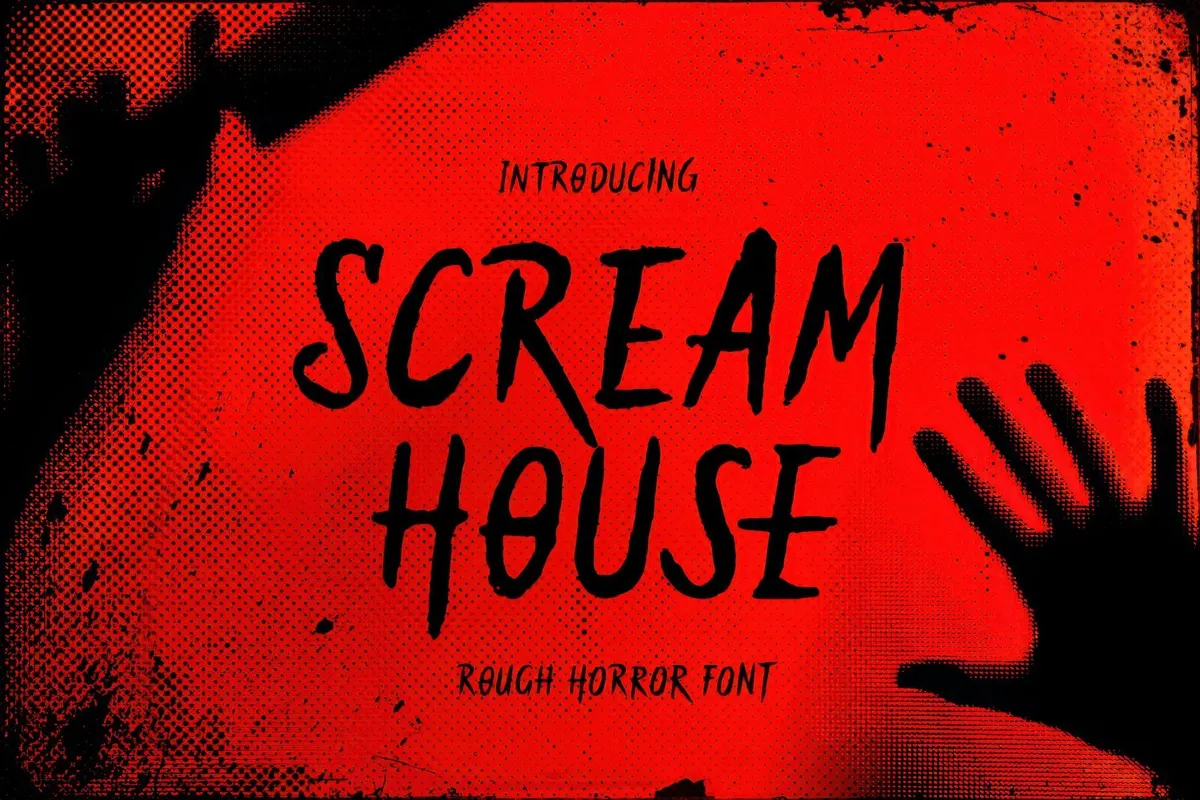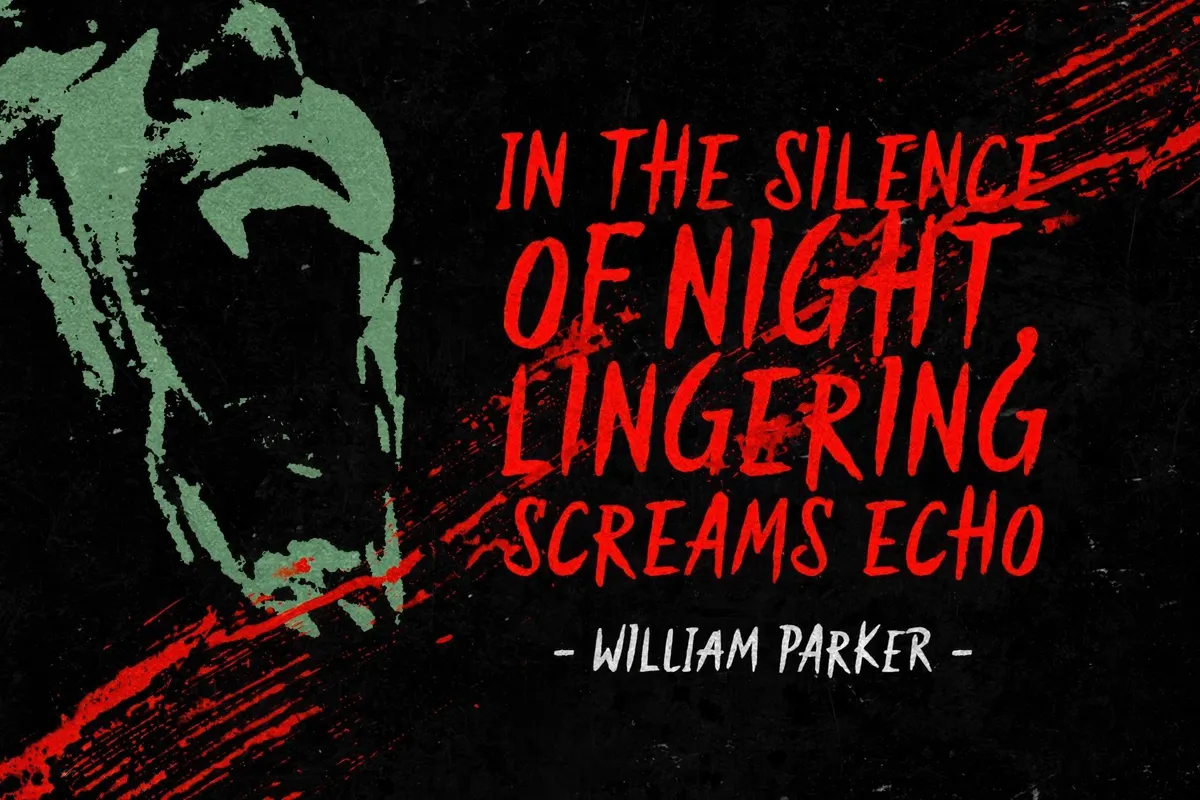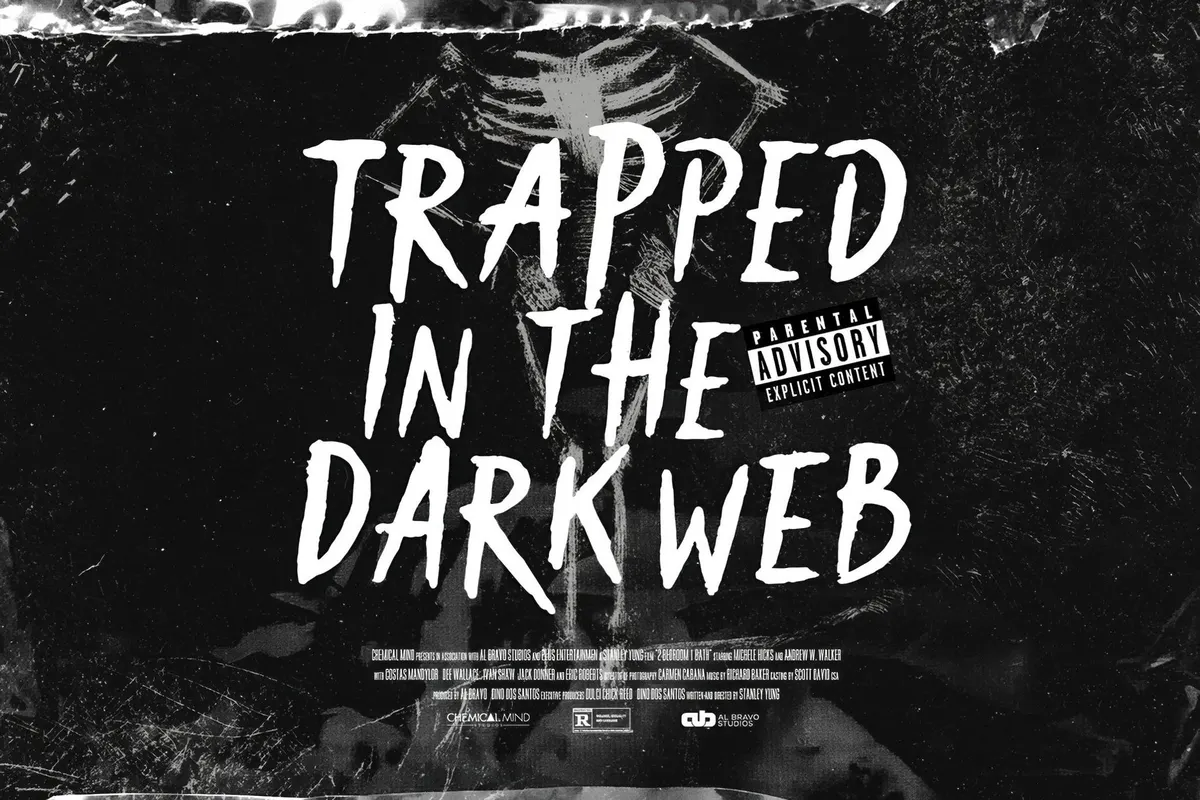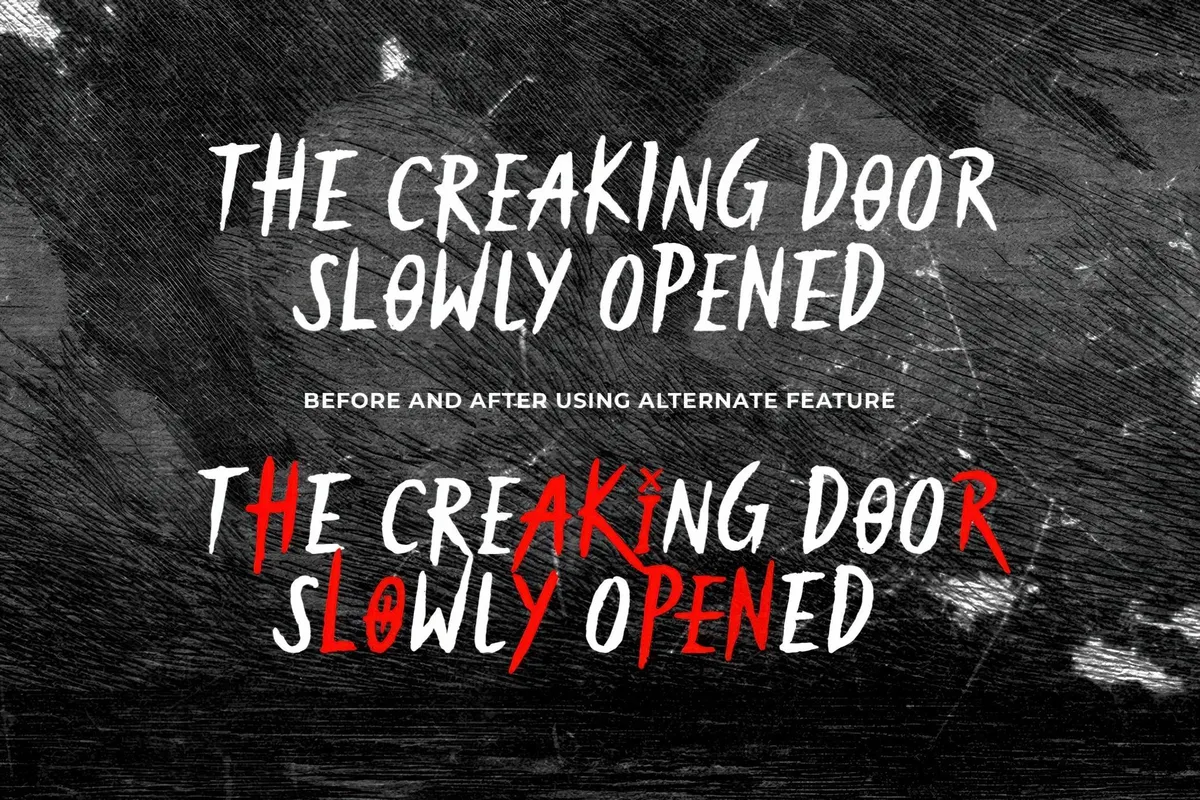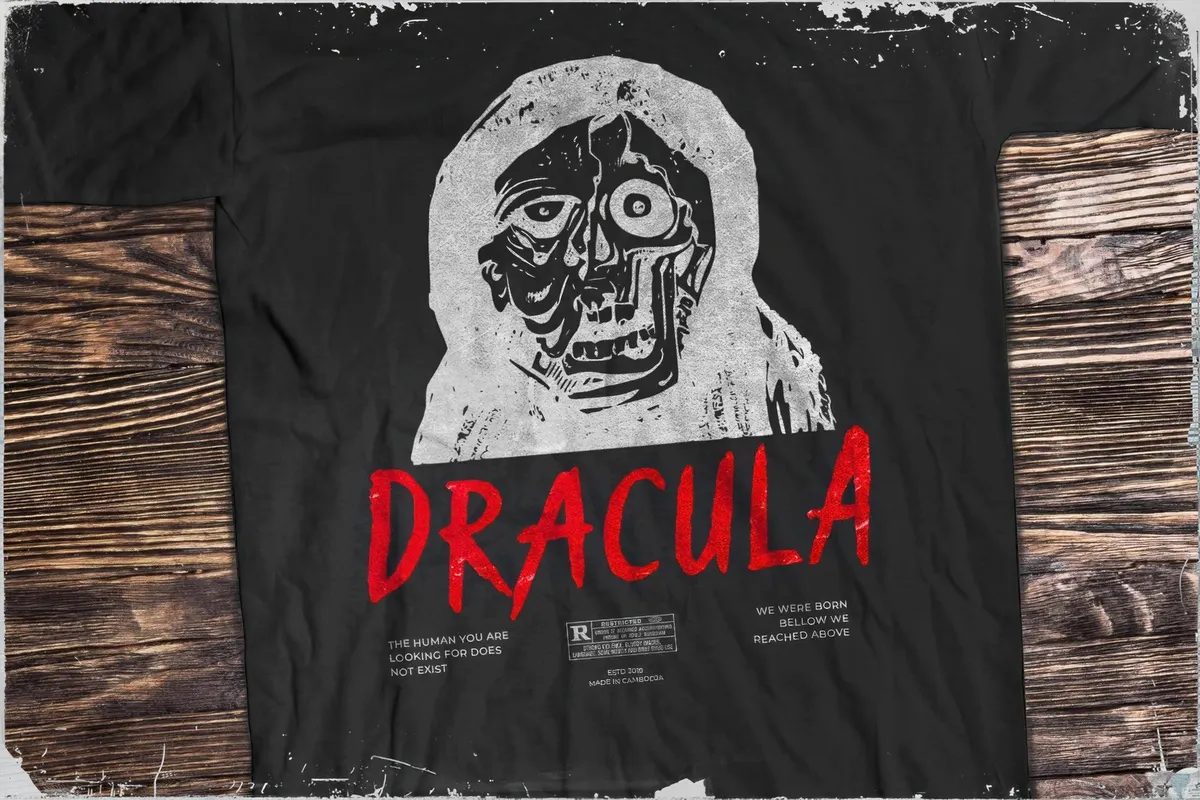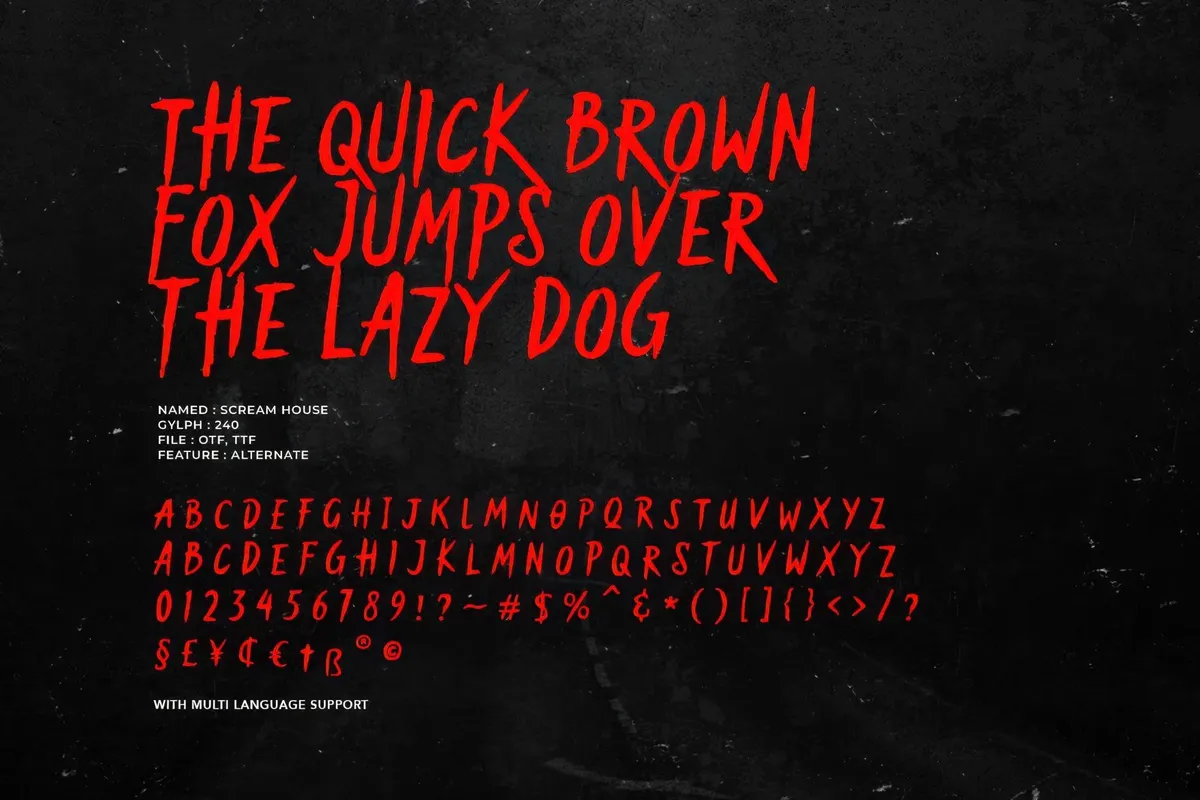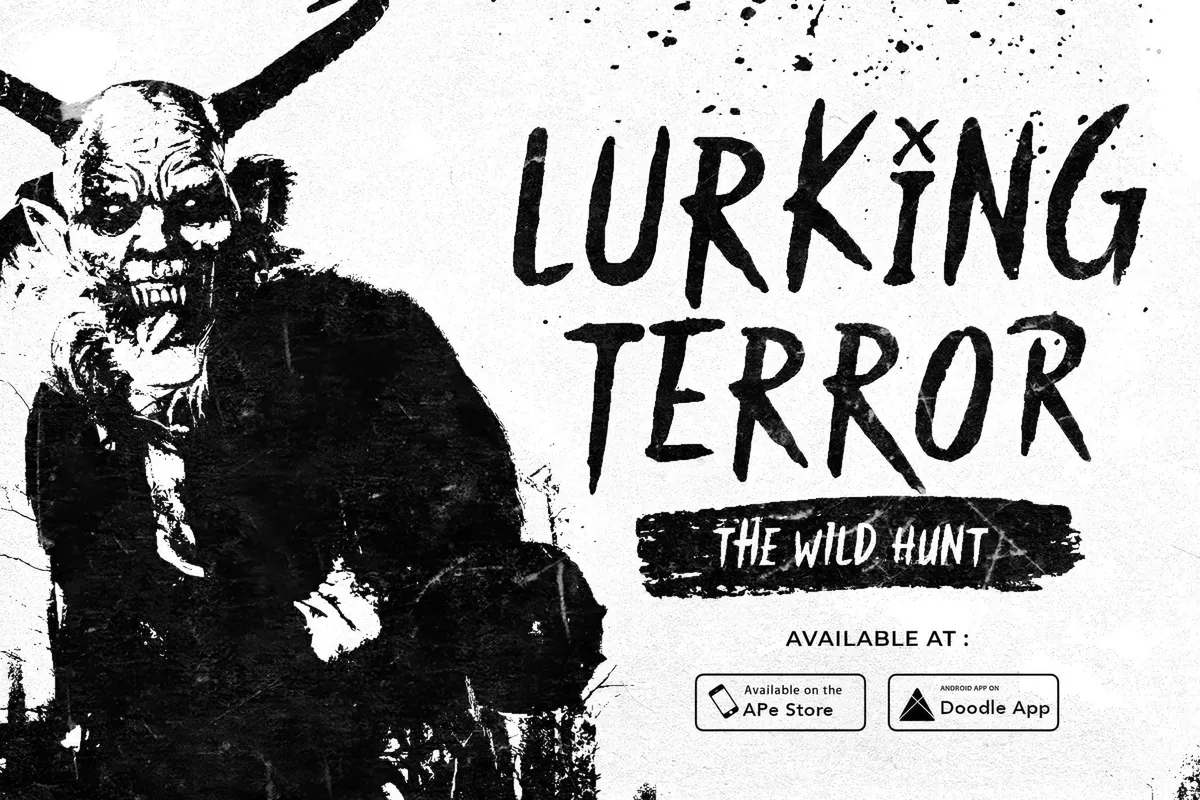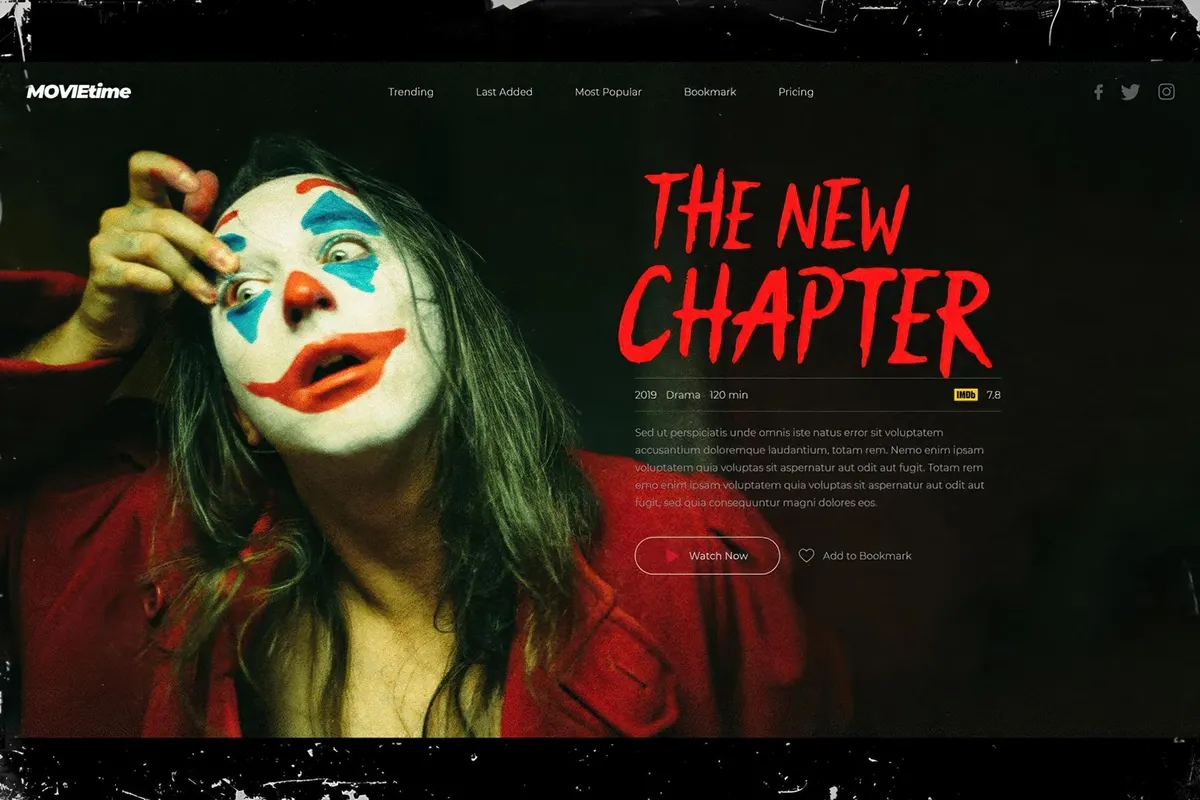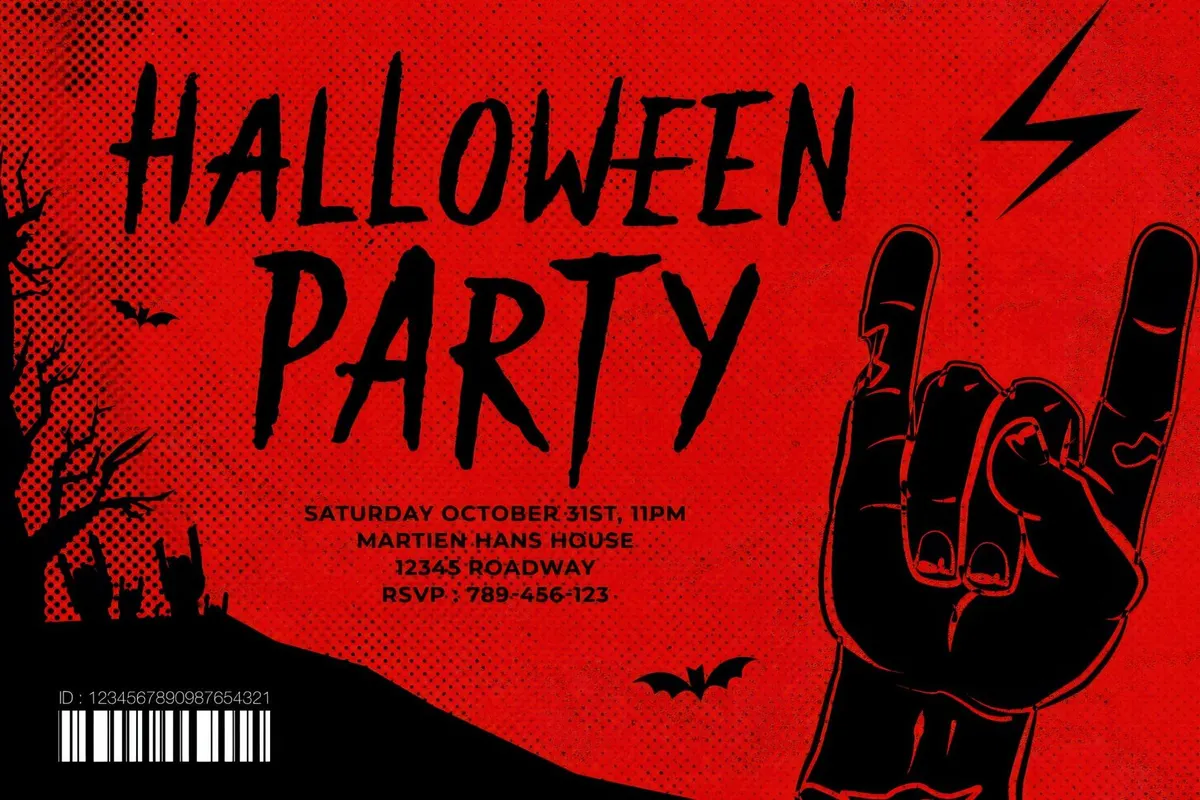
Scream House — Rough Horror Font
Scream House font is the typographic equivalent of a horror movie jump scare. Every letter has that rough, slashed-edge energy like it was scribbled in a frenzy on a foggy mirror. Mix uppercase and lowercase to create a chaotic, unhinged vibe for a design that looks truly possessed. Perfect fit for spine-chilling movie posters, Halloween invite cards, a punk rock album cover, or cases when you want to freak out your audience.
But don’t think it’s all screams and shadows — Scream House brings a wild, rebellious charm that works beyond horror fonts' regular usage: e.g., grungy posters or editorial spreads. Comes packed with uppercase, lowercase (acting as alternates), numerals, punctuation, and multilingual support — so no matter what language your nightmares are in, this one's got you covered.